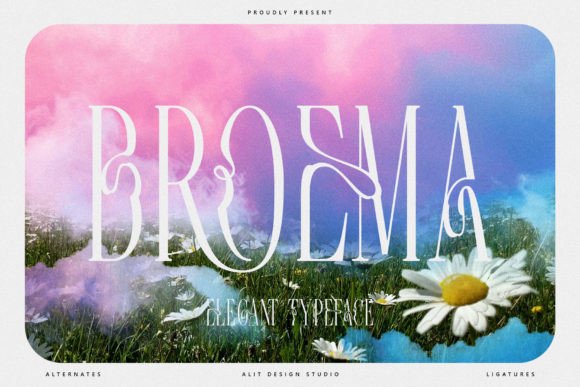
Unveiling Broema: A Masterpiece of Modern Serif Design
Crafted with precision and artistry, Broema stands out with its distinctive letterforms that gracefully sway like ribbons, infusing each character with a sense of fluid motion and elegance. This stunning font is perfect for designers, crafters, and creative hobbyists looking to elevate their designs.
- Unique and elegant letterforms that add a touch of sophistication to any design ✅
- Exceptional legibility, making it perfect for body text and headlines
- Support for OpenType features, glyphs, and stylistic alternates, offering endless creative possibilities
- Beautifully crafted to evoke a sense of fluid motion and elegance
- Some characters may require manual kerning for optimal spacing ⚠️
- Limited availability of language support (but great for English and other European languages)
The Story Behind Broema: Designer Inspiration
Broema was crafted by a team of skilled designers who aimed to create a font that embodies the essence of modern sophistication. Inspired by the flowing lines of ribbons and the elegance of traditional serif fonts, Broema was born. The designers’ goal was to create a typeface that not only looks stunning but also evokes a sense of fluid motion and refinement.
Q: What makes Broema unique?
A: Broema’s unique letterforms, elegant lines, and support for OpenType features make it stand out from other serif fonts.
Q: Is Broema suitable for body text?
A: Absolutely! Broema has excellent legibility, making it perfect for body text and headlines.